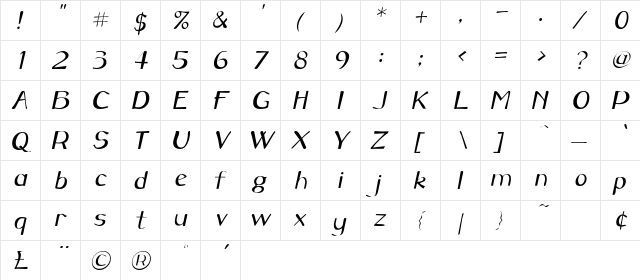
DurranceSSK Italic
Design Context for DurranceSSK Typeface
DurranceSSK offers clean, dependable letterforms without strong stylistic allegiance, making it a practical choice for designers who need flexibility. The dynamic lean of this cut emphasises speed and emphasis in any layout.
Pro Tip: Use DurranceSSK for emphasis, pull quotes, and subheadings where its slanted energy can add rhythm to the layout.